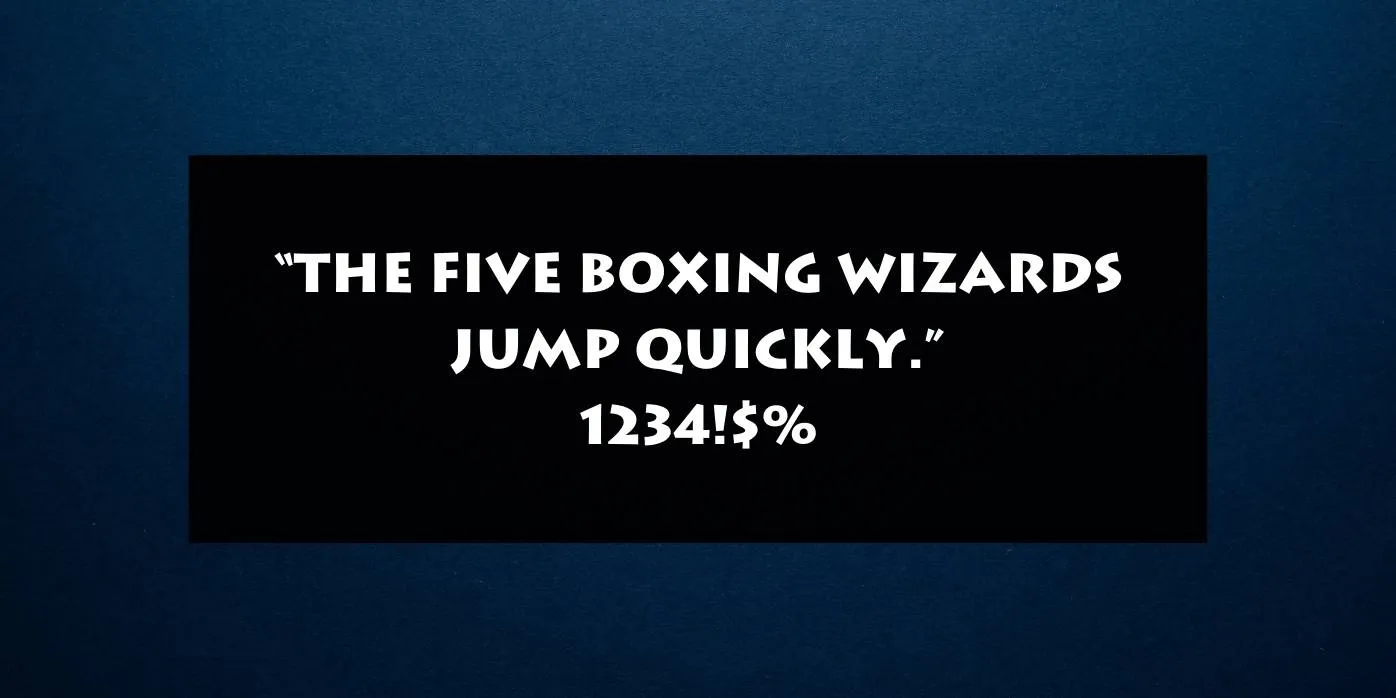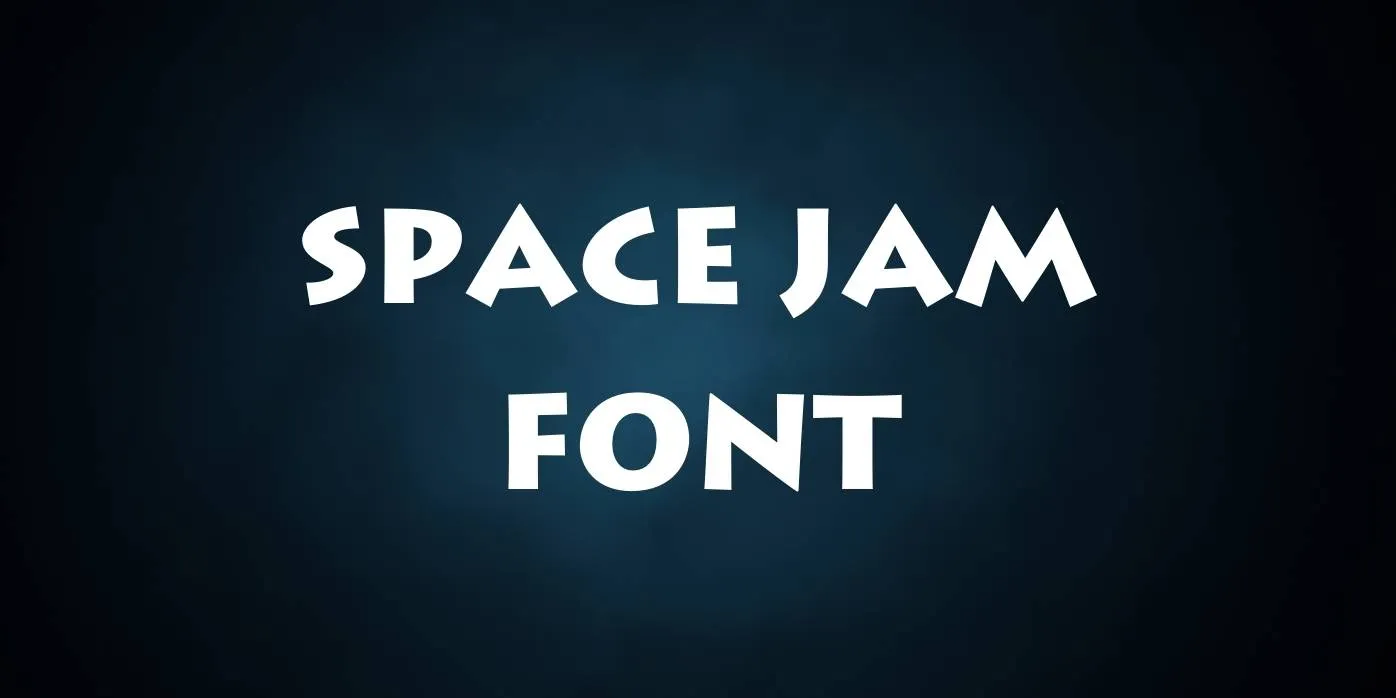
Space Jam Font
In this article, we present Space Jam Font which belongs to the fancy family. This awesome typeface was designed by Carol Twombly. This tremendous font was inspired by the lettering on the 1952 album The Space Race by Raymond Scott. This font is perfect for making headlines and titles.
It’s a great choice for any project that needs a touch of fun and playfulness. This gorgeous typeface has different styles like Book, Regular, and Italic. It is known for its copy-and-paste function. This amazing font has a unique design that makes it stand out from the rest.
The letters are thick and chunky, which gives them a strong presence. The rounded edges give the font a friendly look, while the sharp points add a touch of excitement. The generator tool of this typeface is best for different designs.